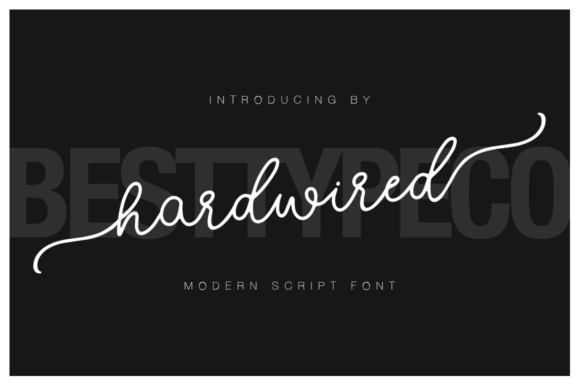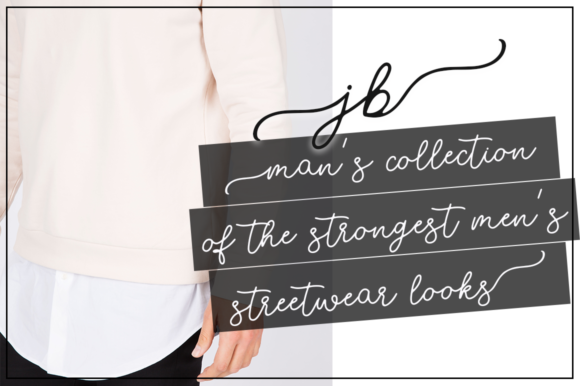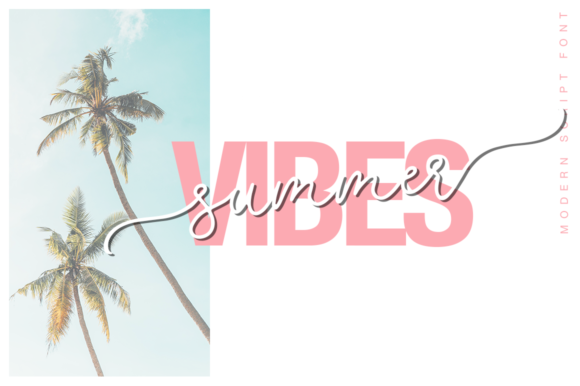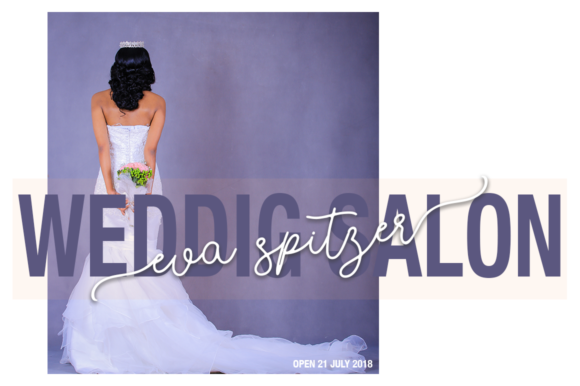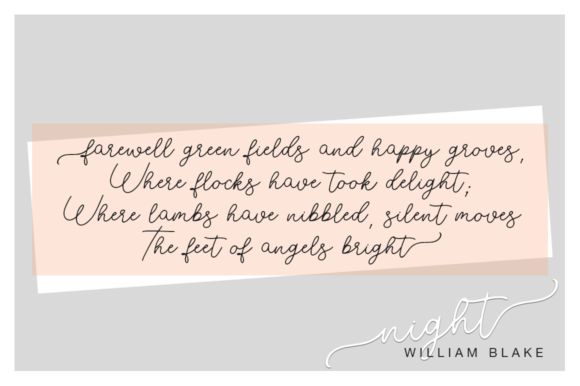
Hardwired Font
About Hardwired Font
Hardwired is a casual yet elegant script with a contemporary vibe. Use it to turn any design project into a standout!